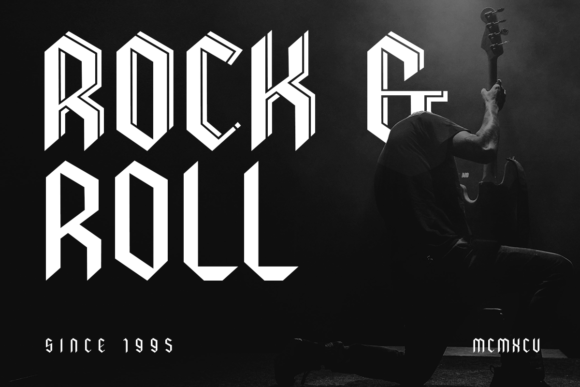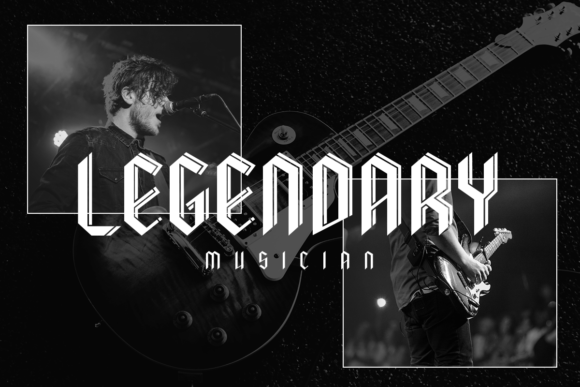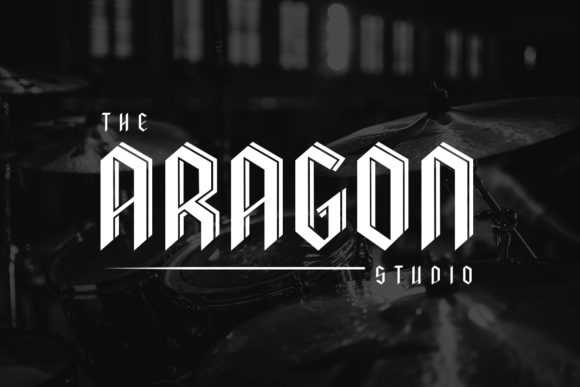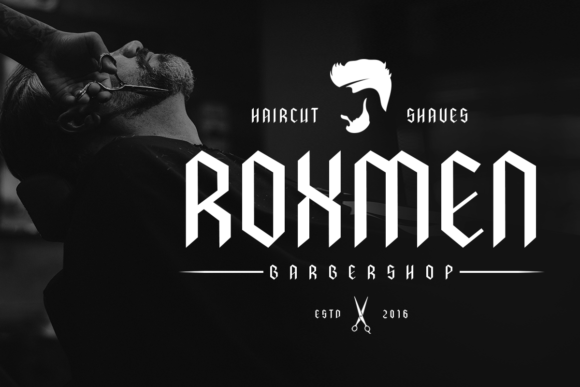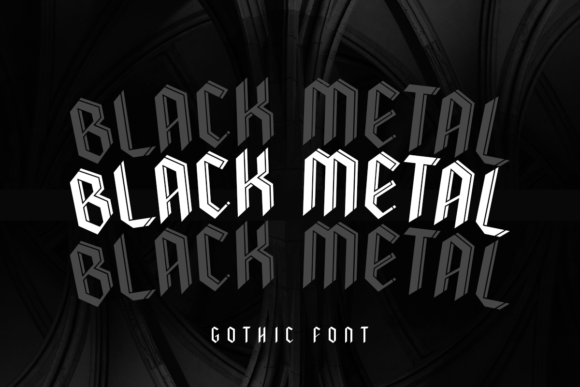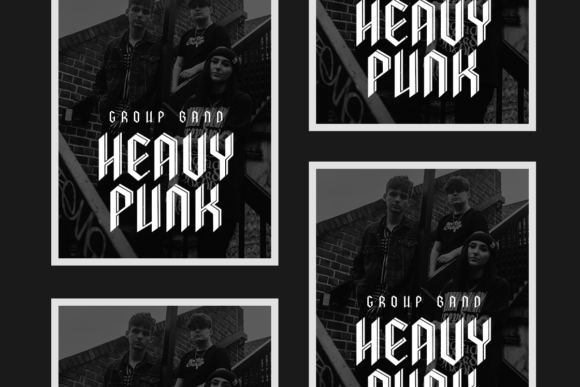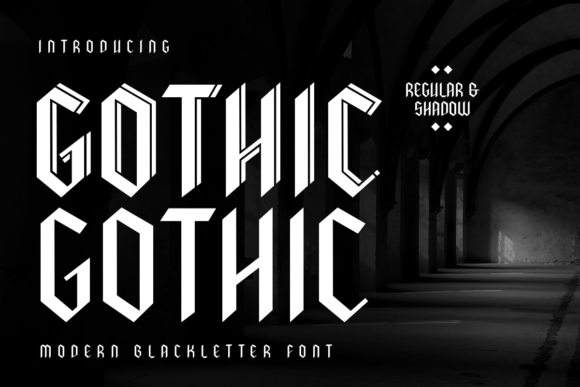
The Elegance of Gothic Font: A Contemporary Blackletter Font for Modern Designers
In the world of typography, few fonts have managed to capture the essence of mystery, elegance, and versatility as effectively as the Gothic font. This contemporary blackletter font has been making waves in the design community with its unique blend of gothic, Roman, and old-style influences. Whether you’re a seasoned designer or a crafty DIY enthusiast, the Gothic font is an excellent addition to your toolkit, offering endless possibilities for creative expression.
What Makes Gothic Font Stand Out?
At its core, the Gothic font is a serif display typeface with a moderate contrast that lends itself beautifully to a wide range of applications. Its high level of legibility ensures that your message is conveyed clearly and effectively, making it perfect for projects where communication is key. From branding and logos to wedding designs, social media posts, and product packaging, this font’s versatility knows no bounds.
A Blend of Influences
One of the defining features of the Gothic font is its blend of gothic, Roman, and old-style influences. This eclectic mix gives the font a distinctive look that is both nostalgic and modern. The gothic influence provides a sense of drama and elegance, while the Roman and old-style elements add a touch of classic sophistication. The result is a font that feels both timeless and contemporary.
Effortless Customization
Another significant advantage of the Gothic font is its ability to allow designers to create various unique shapes by combining different styles and choosing alternates. This level of customization is incredibly valuable for designers who want to create distinctive and memorable designs. With the Gothic font, you can experiment with different combinations in seconds, giving you the flexibility to adapt to any project’s needs.
Ideal for a Wide Range of Projects
Given its versatility and legibility, the Gothic font is suitable for a myriad of design projects. Here are some of the areas where this font truly shines:
• Branding and Logos: Create a lasting impression with a unique and memorable logo that captures the essence of your brand.
• Wedding Designs: Add a touch of elegance and romance to your wedding invitations, stationery, and decorations.
• Social Media Posts: Elevate your social media presence with stylish and engaging posts that stand out from the crowd.
• Advertisements: Grab attention and convey your message effectively with eye-catching ads.
• Product Packaging: Make your products stand out on store shelves with beautiful and distinctive packaging.
• Labels and Photography: Add a professional touch to your labels and photographs with a clear and elegant font.
• Watermarks: Protect your work with a subtle yet effective watermark that doesn’t distract from your content.
• Invitations and Stationery: Create personalized and stylish invitations and stationery for any occasion.
Why Designers and Crafters Love Gothic Font
Designers and crafters alike are drawn to the Gothic font for its unique combination of style, versatility, and legibility. Here are a few reasons why:
• Ease of Use: The Gothic font is incredibly easy to use, even for those who are new to design. Its intuitive design makes it simple to customize and adapt to different projects.
• High-Quality Aesthetic: The font’s high-quality aesthetic makes it perfect for professional projects that require a touch of sophistication.
• Time-Saving: With the Gothic font, you can create stunning designs in a fraction of the time it would take with other fonts.
Font Name Gothic Font
Author sensatype
The Gothic font is a game-changer for designers and crafters looking to elevate their projects with a touch of elegance and sophistication. Its unique blend of influences, versatility, and high level of legibility make it an excellent choice for a wide range of applications. Whether you’re working on a branding project, wedding design, or simply want to create stylish social media posts, the Gothic font is an invaluable resource that can help you achieve your creative vision.